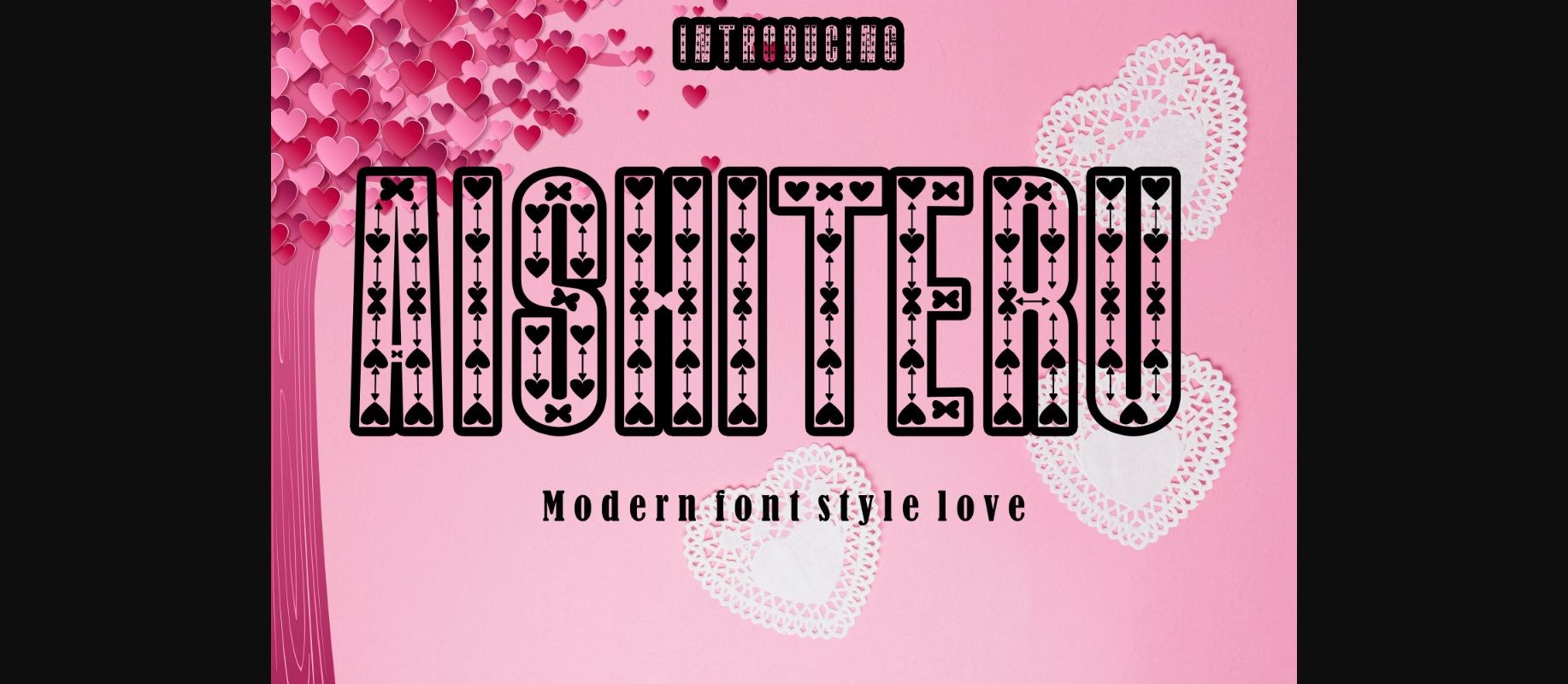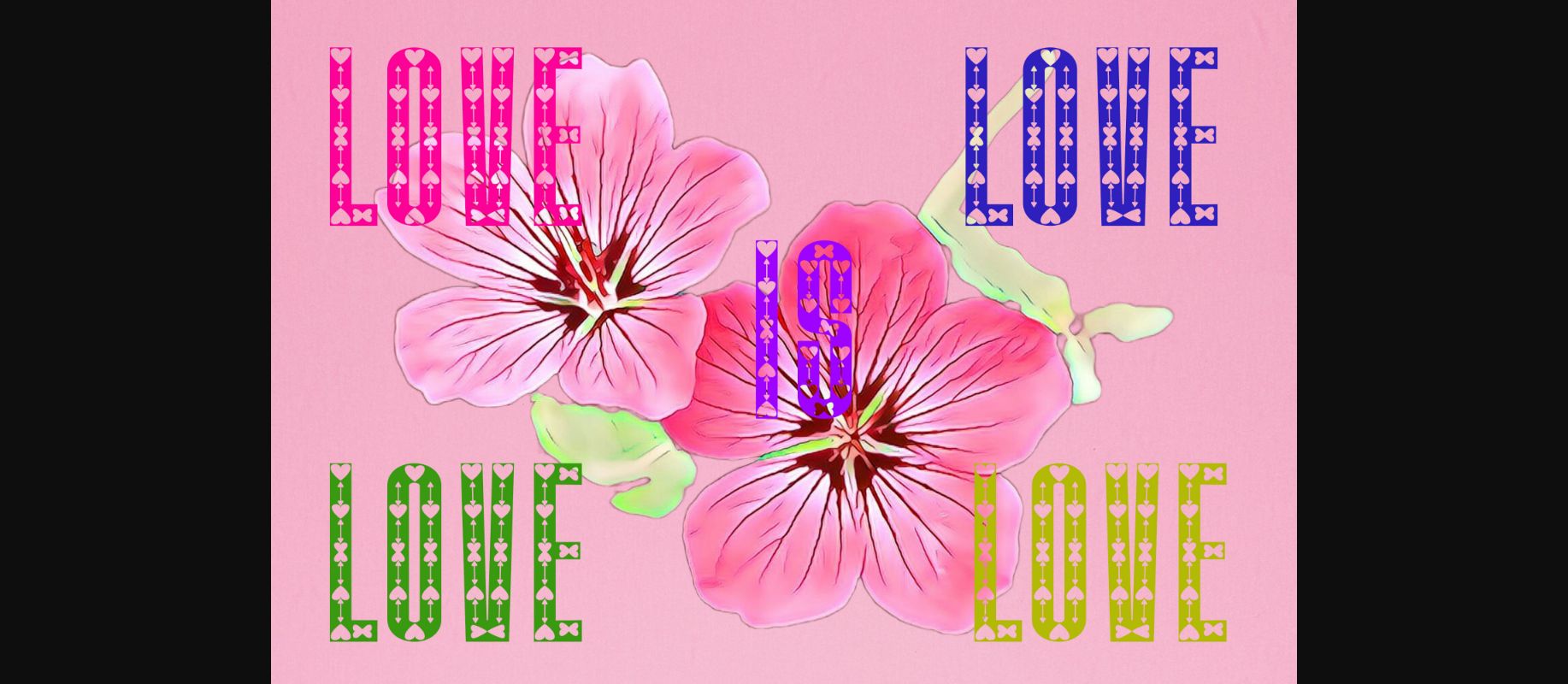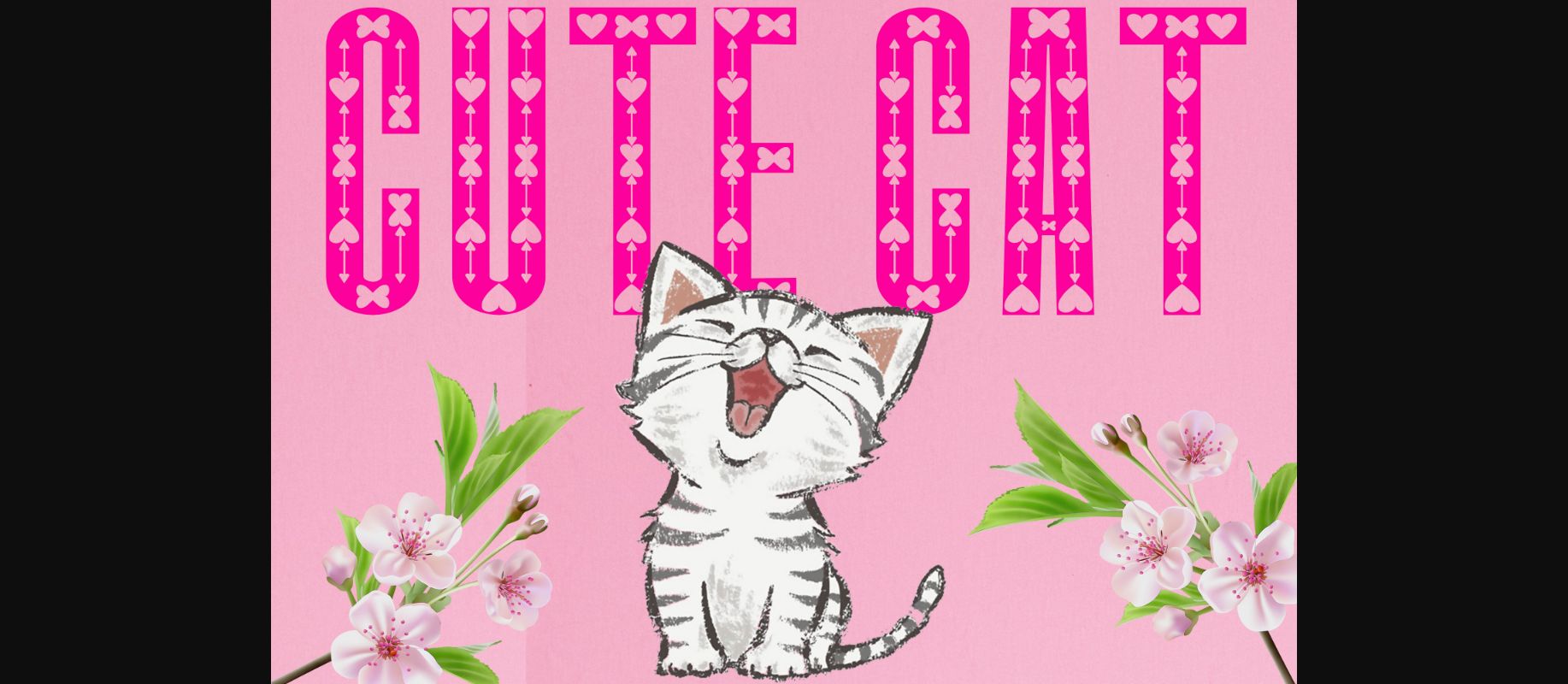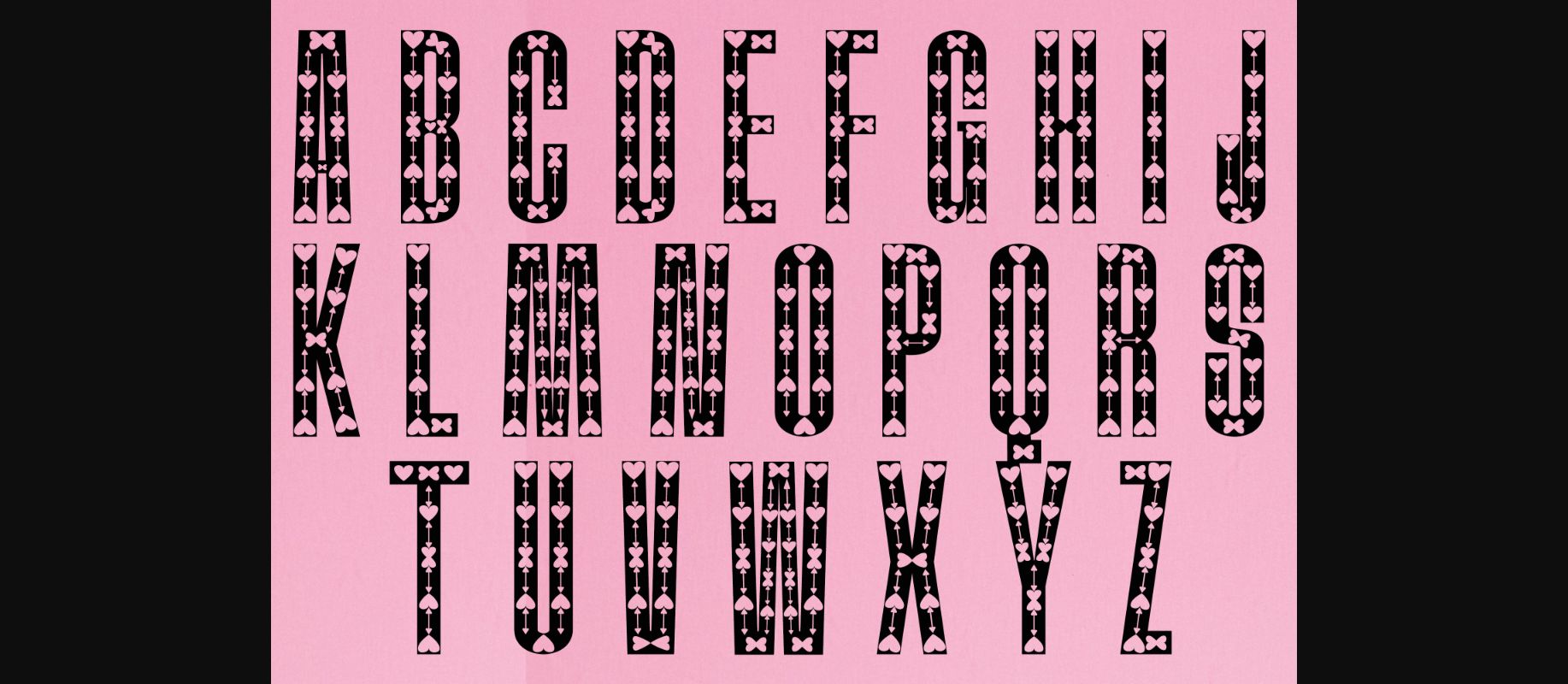
Aishiteru Font
About Aishiteru Font
Aishiteru is a simple, minimalist, and neat modern font. It can be easily adapted to a wide variety of projects, such as advertising, titles, blogs, logos, branding, invitations, business cards, and more! So add it to your creative ideas and see how it makes it stand out!